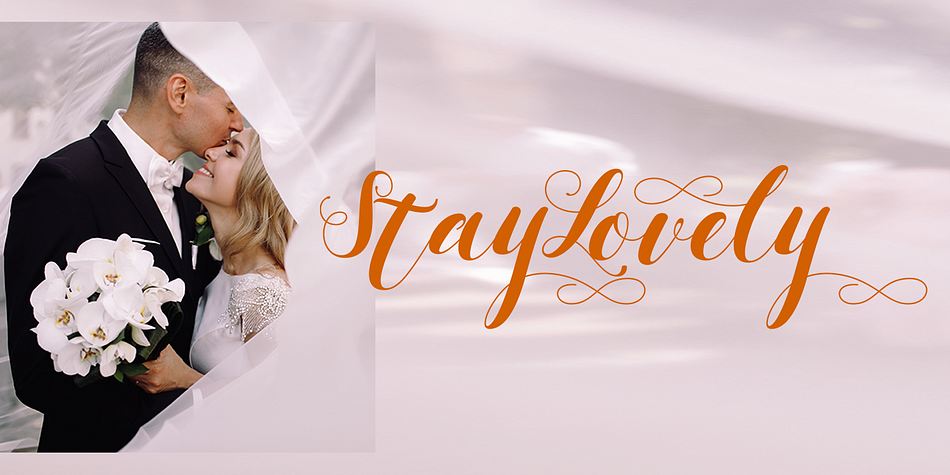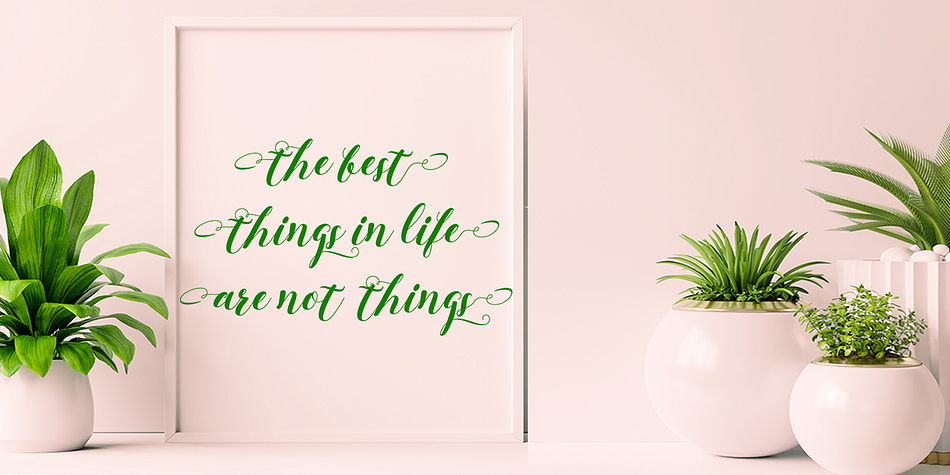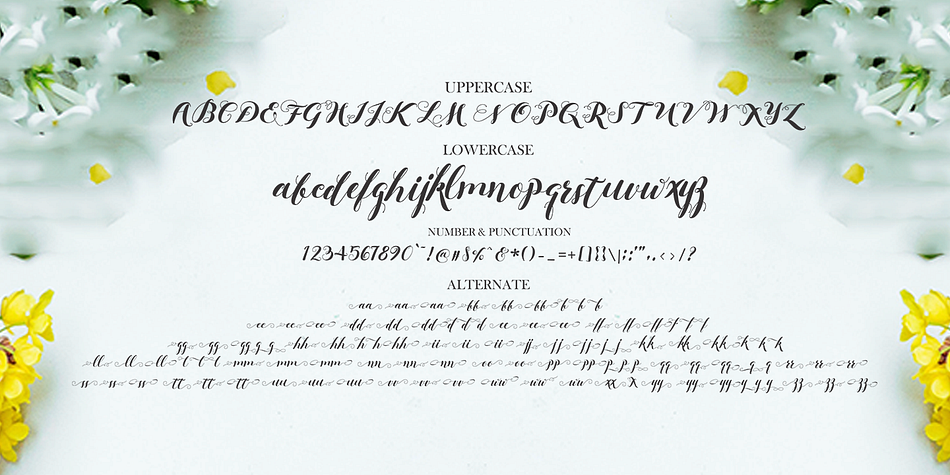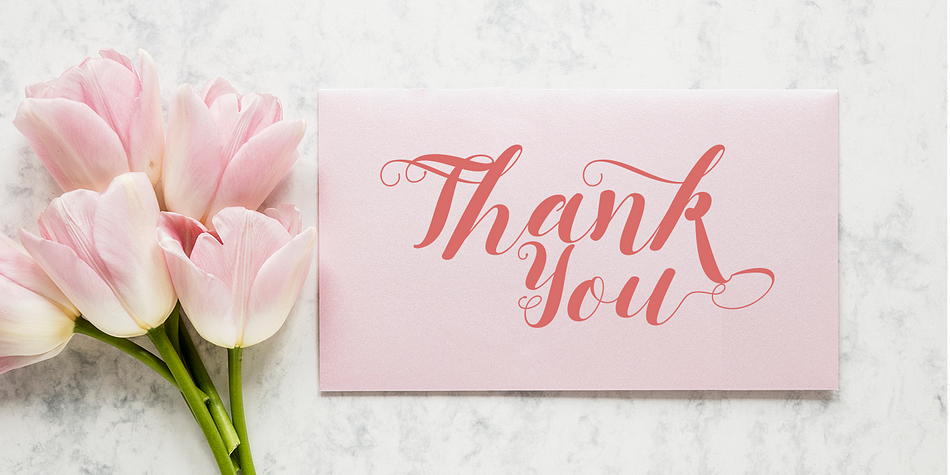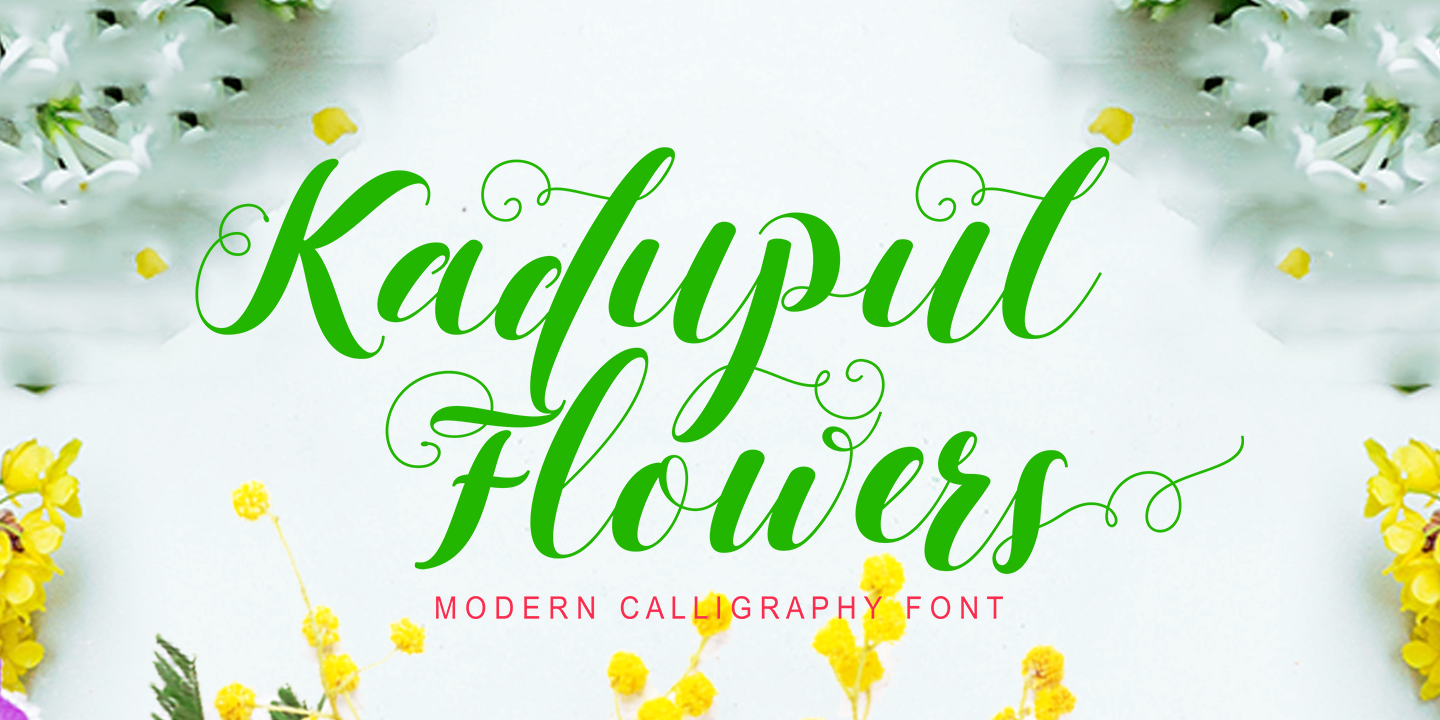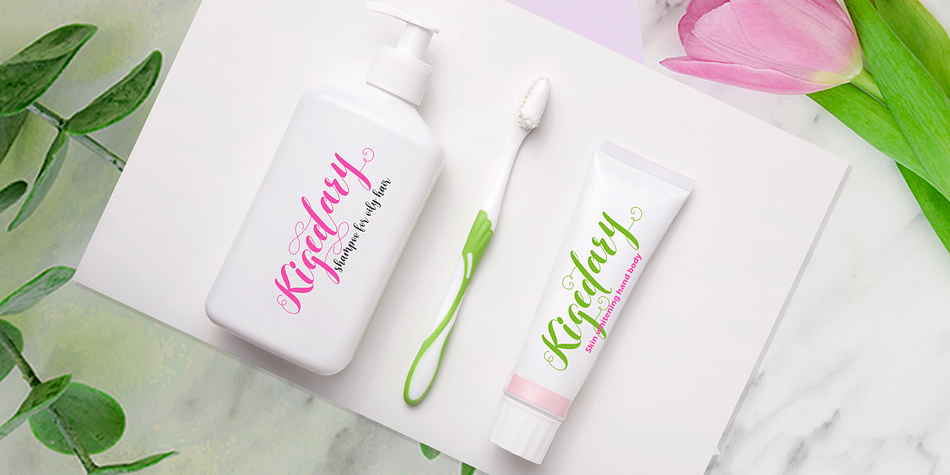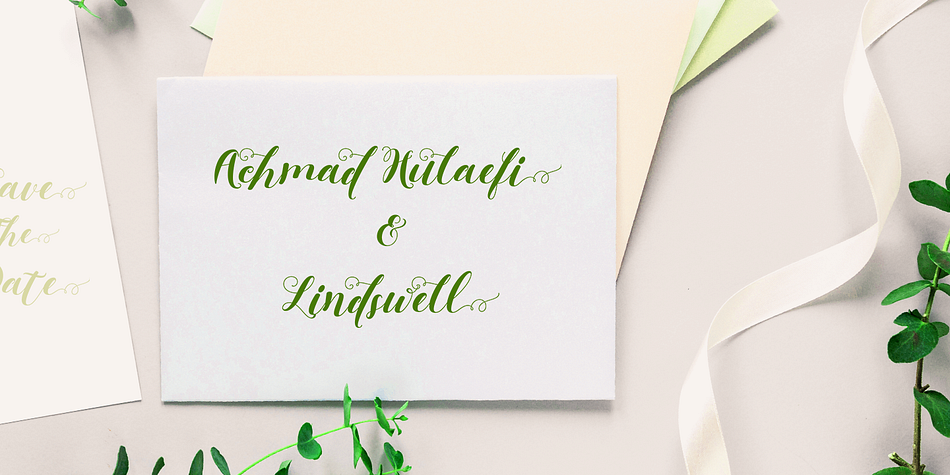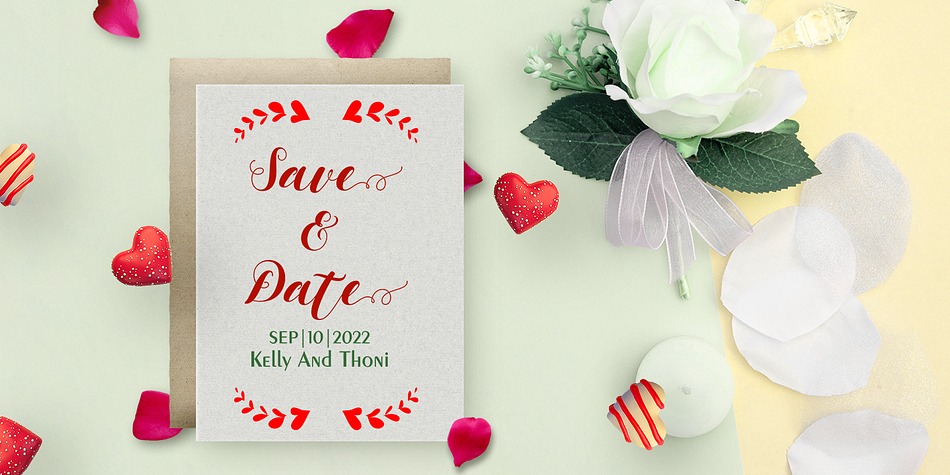
Kadupul Flowers
Kadupul Flowers is a modern calligraphy font family published by Gatype.
Kadupul Flowers is an incredibly unique handwritten,The shape is modern and style is very natural.modern calligraphy font. Masterfully designed to become a true favorite, the name of this font is also inspired by the name of a flower that is popular in the world this font has the potential to bring each of your creative ideas to the highest level! Kadupul Flowers features a varied baseline, gorgeous glyphs, and stunning alternatives.
Hand-drawn design elements allow you to create many beautiful typographic designs in an instant like branding, web design and editorial, prints, crafts, quotes,
It’s great for logotypes, wedding invitations, romantic cards, labels, packaging, spelling of names and others. Kadupul Flowers includes OpenType stylistic alternates, ligatures and International support for most Western Languages. To enable the OpenType Stylistic alternates, you need a program that supports as Adobe Illustrator CS, Adobe Indesign & CorelDraw X6-X7, Microsoft Word 2010 or later versions.